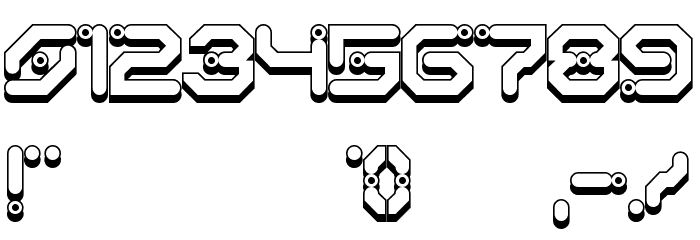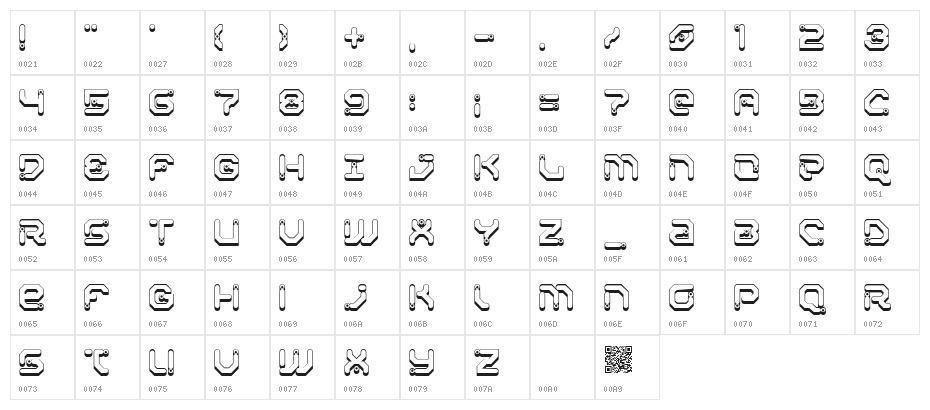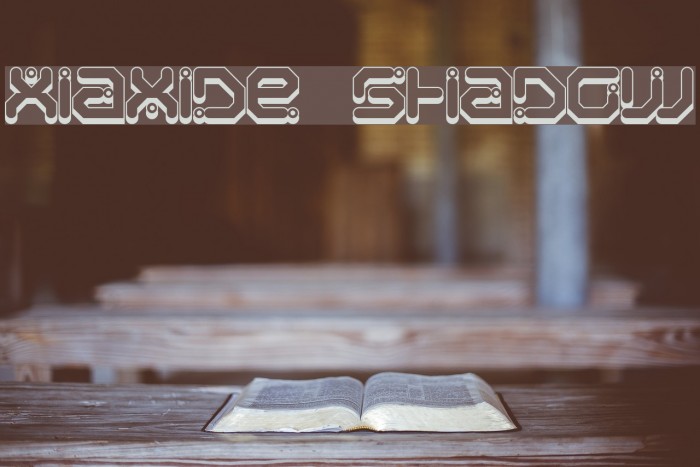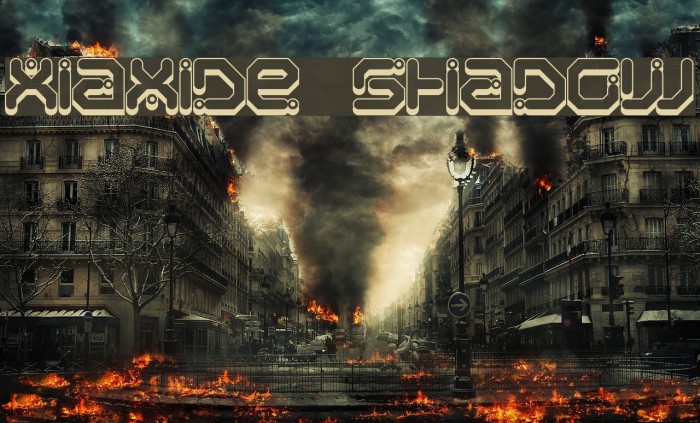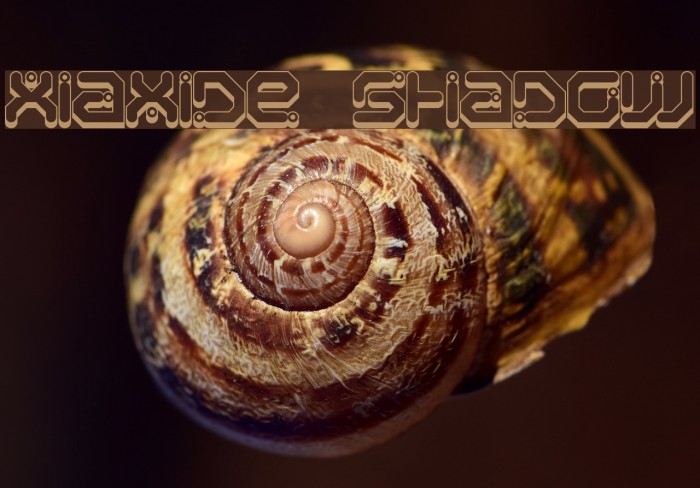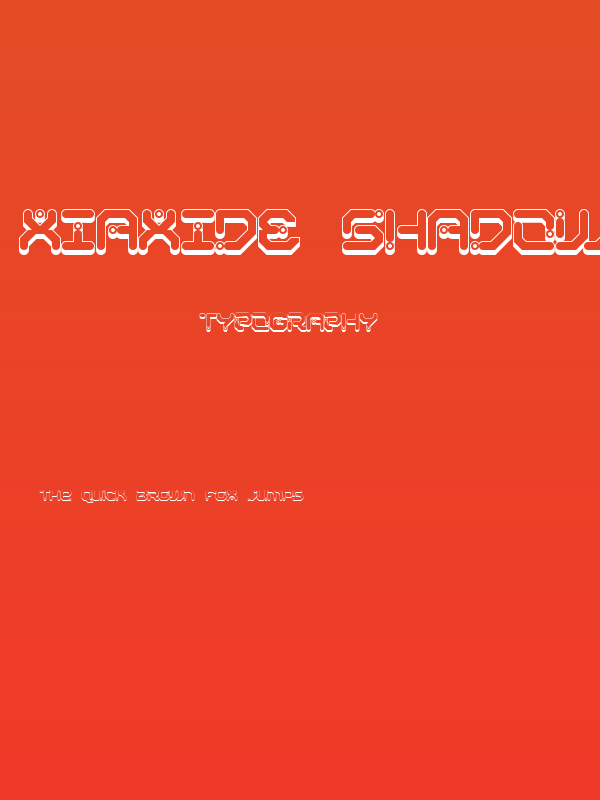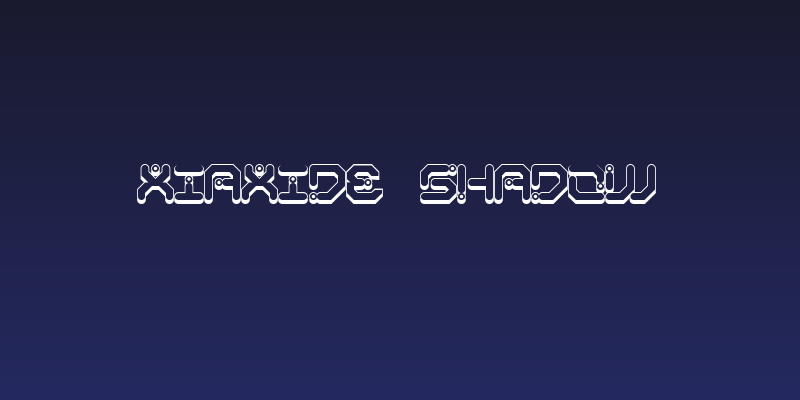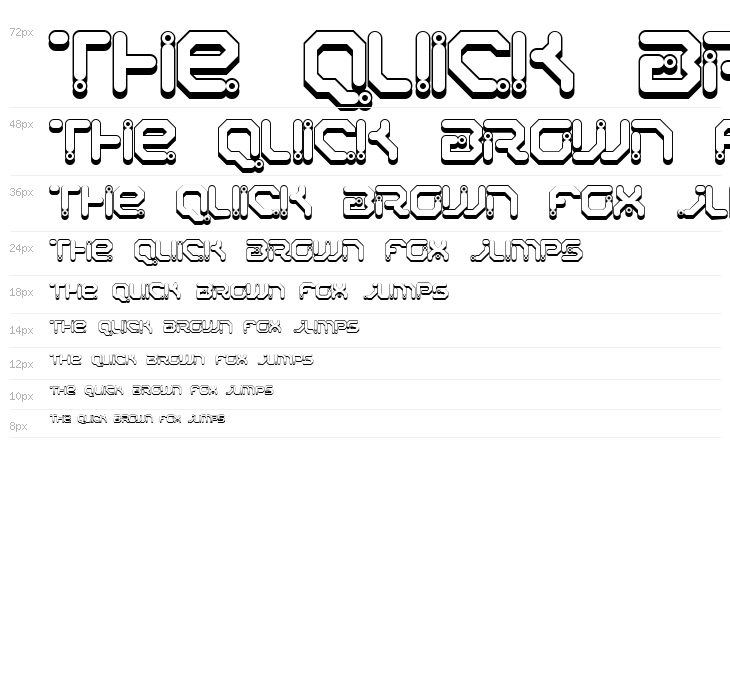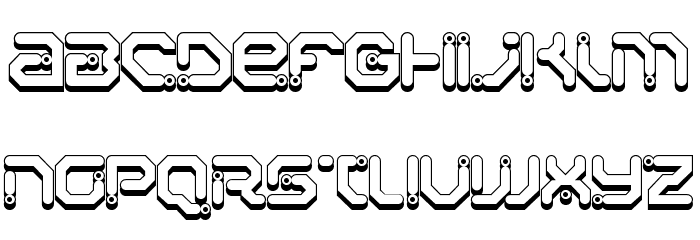
Xiaxide Shadow Font
Xiaxide Shadow Description
This font features a futuristic and geometric design, characterized by its bold and structured letterforms. Each character is composed of thick lines with rounded edges, creating a sense of depth and dimension. The font includes unique circular cutouts and shadow effects that add a distinctive, tech-inspired aesthetic. Its uniformity and consistency make it visually striking, while the shadowing provides an illusion of three-dimensionality. The design is both modern and playful, suitable for projects that require a bold statement.
| Proposed Projects | Ideal for technology branding, sci-fi themed posters, video game graphics, and modern logo designs. |